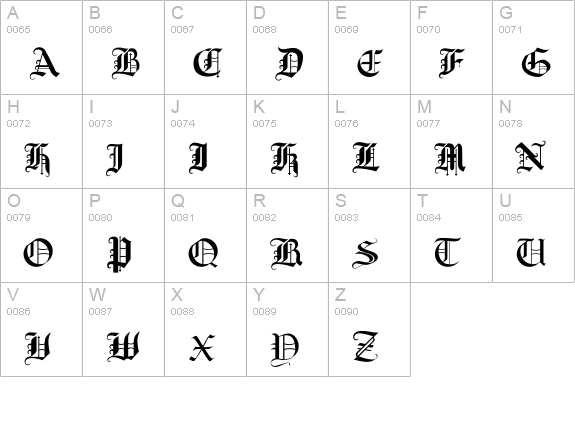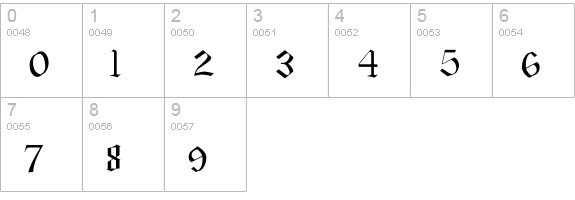
BobGothic font is a stunning display typeface that combines classic Gothic elements with a modern twist. Its intricate details and sharp edges give it a bold and edgy look, making it perfect for adding a touch of sophistication to your designs. Whether you're working on a poster, logo, or branding project, BobGothic font is sure to make a statement. The best part? BobGothic font is available for free download at FontsMarket.com. This means you can easily access this stylish font and use it in your projects without any cost. Don't miss out on the opportunity to enhance your designs with the unique charm of BobGothic font. Download it now and unleash your creativity!